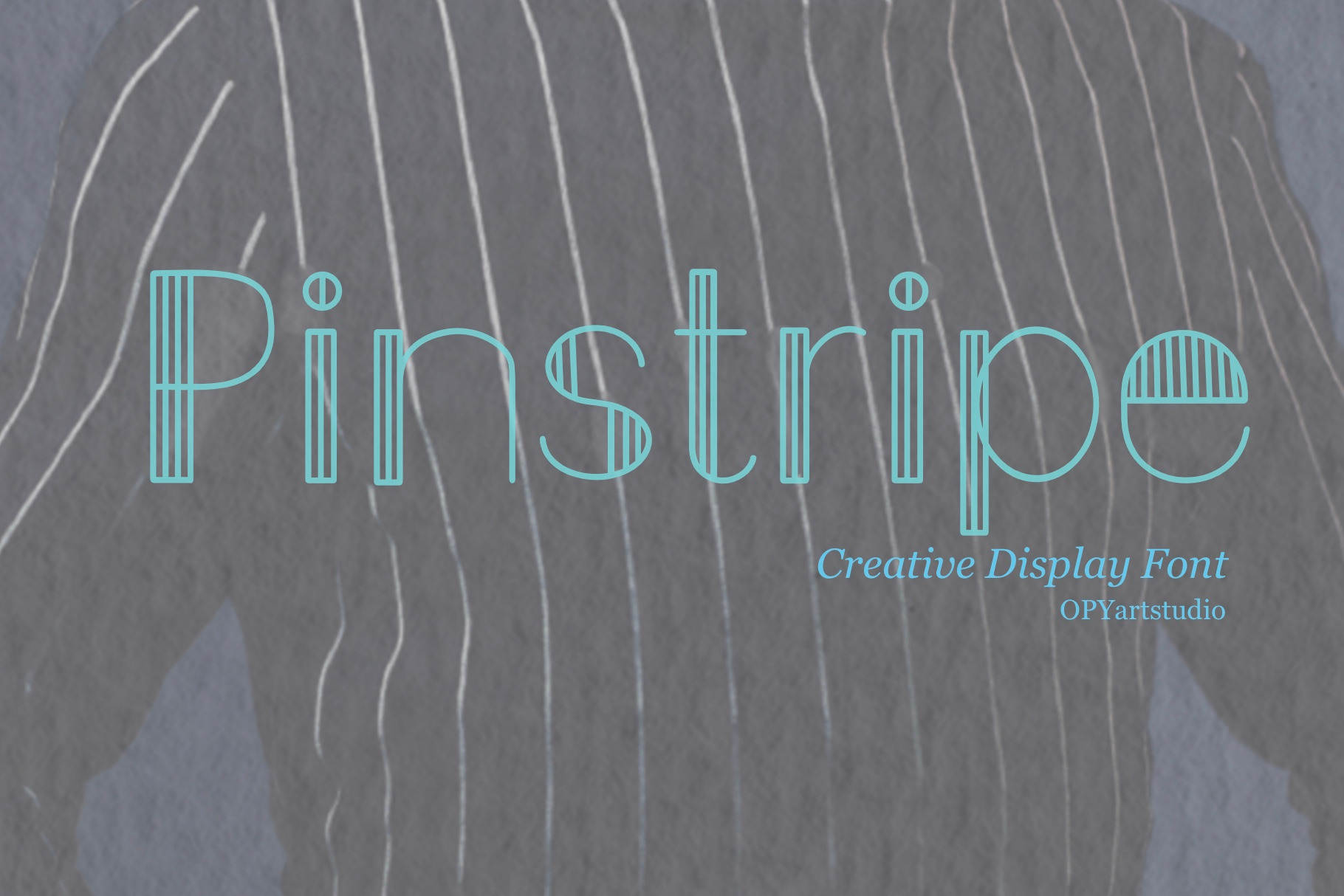
Pinstripe - Creative Display Font
I'm thrilled to share my font creation, "Pinstripe," inspired by the everyday clothes and art designs that surround us. I took this inspiration and adapted it to create a font that's both creative and fun, with a touch of style.
"Pinstripe" is perfect for use in design projects, posters, presentations, and any display that requires a unique and stylish look. This font is versatile and adaptable, and it truly captures the essence of everyday fashion and design. "Pinstripe" is a font that will surely stand out and add a touch of creativity to any project.